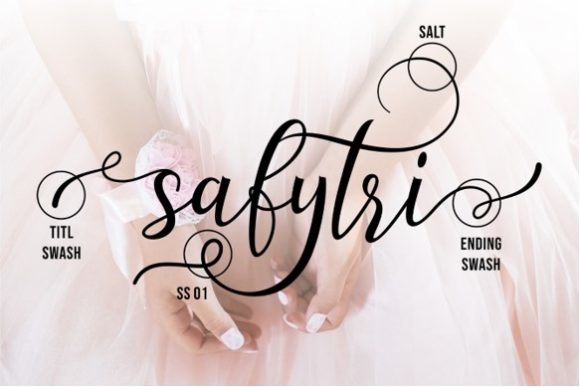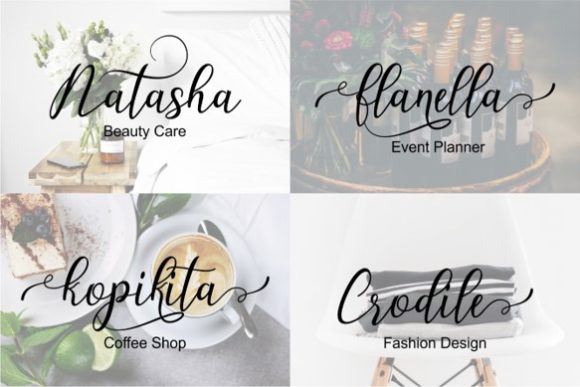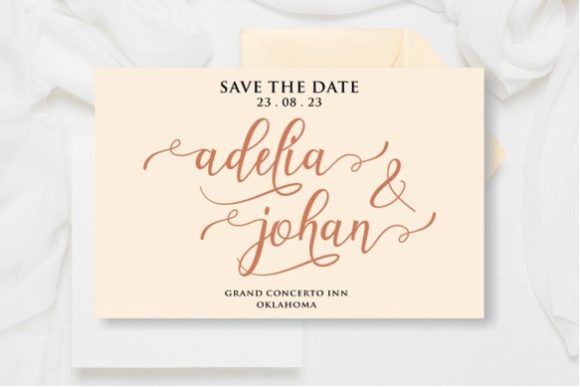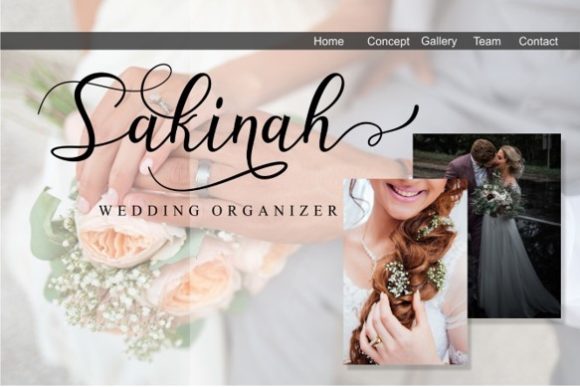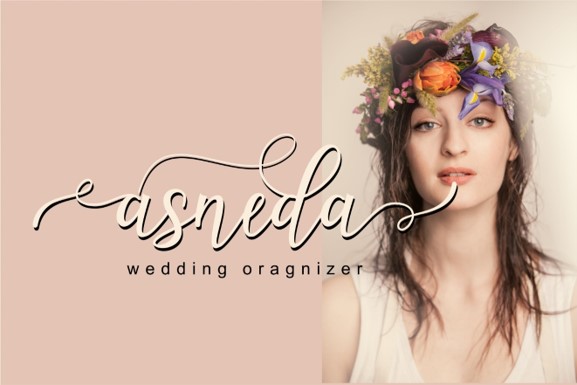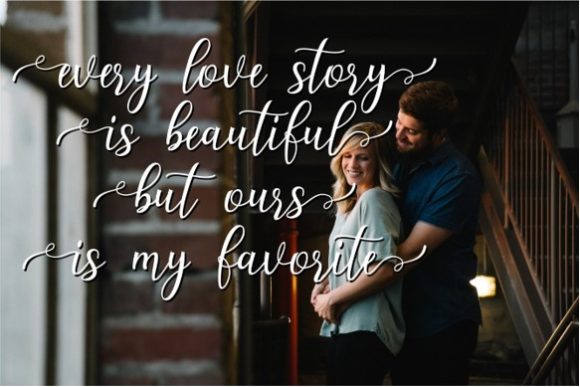
Introduction to Safytri Font
Safytri is a highly original script font with amazing swashes.
It will turn any design idea into a true standout .
Key Features of Safytri Font
Why Choose Safytri Font?
Safytri Font offers exceptional quality and versatility, making it a valuable addition to your design toolkit. Whether you’re creating for personal projects or commercial use, Safytri Font delivers professional results.